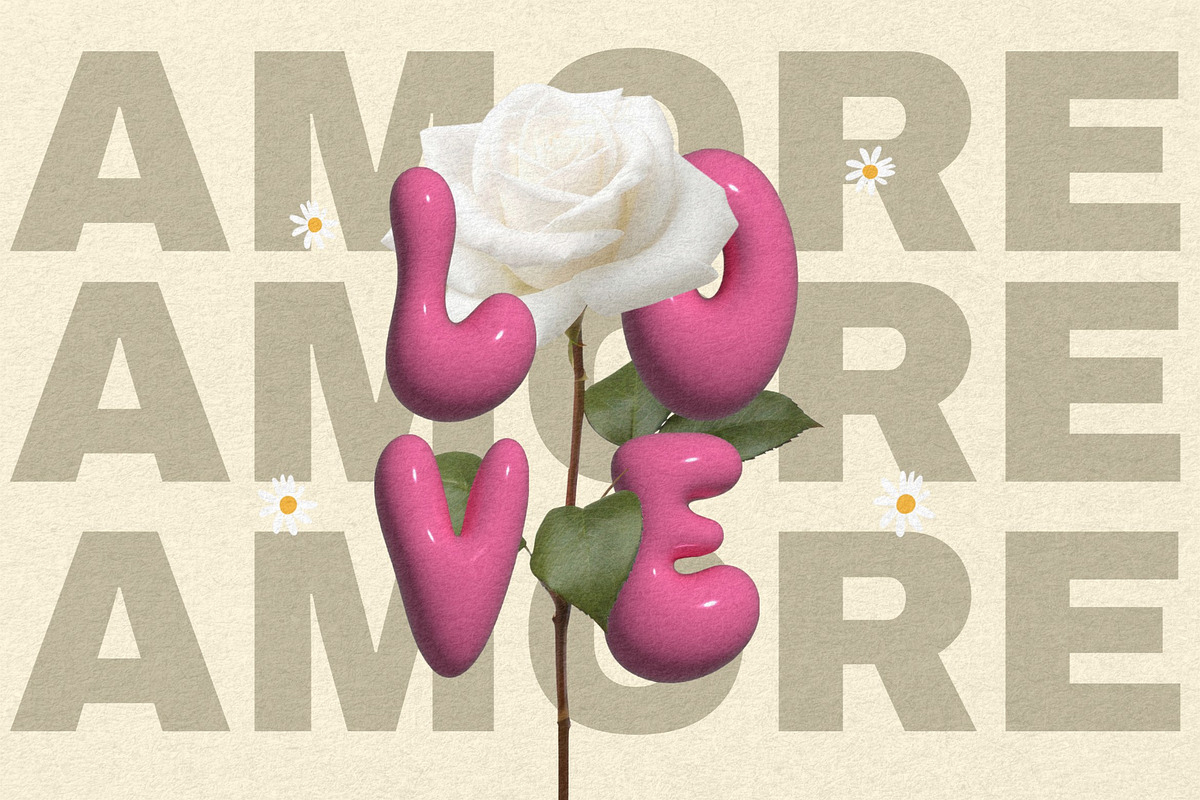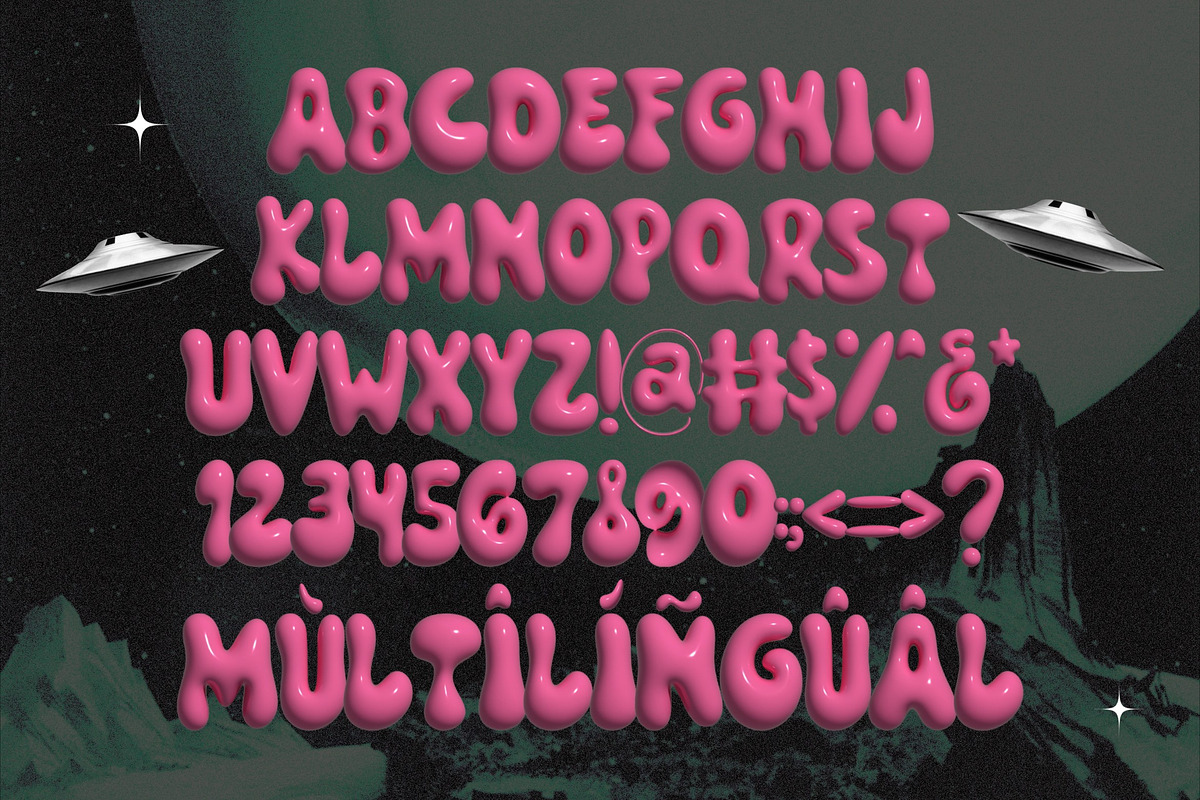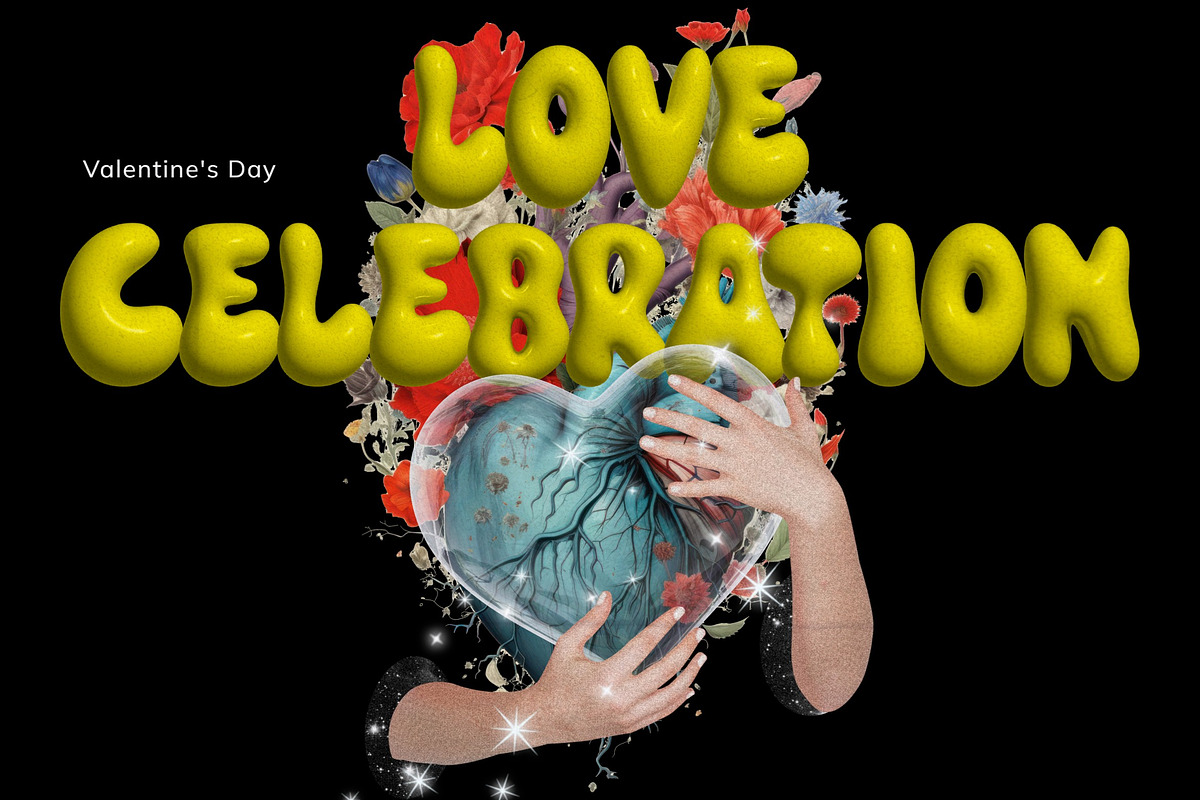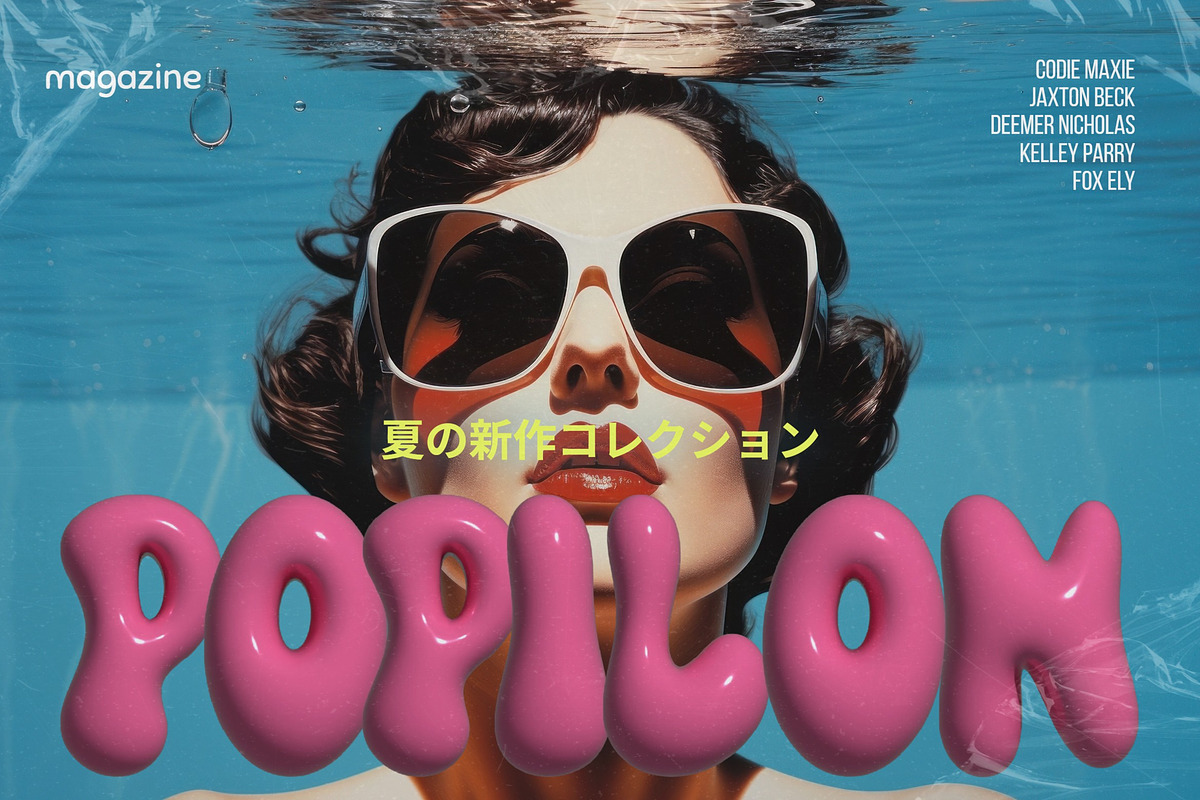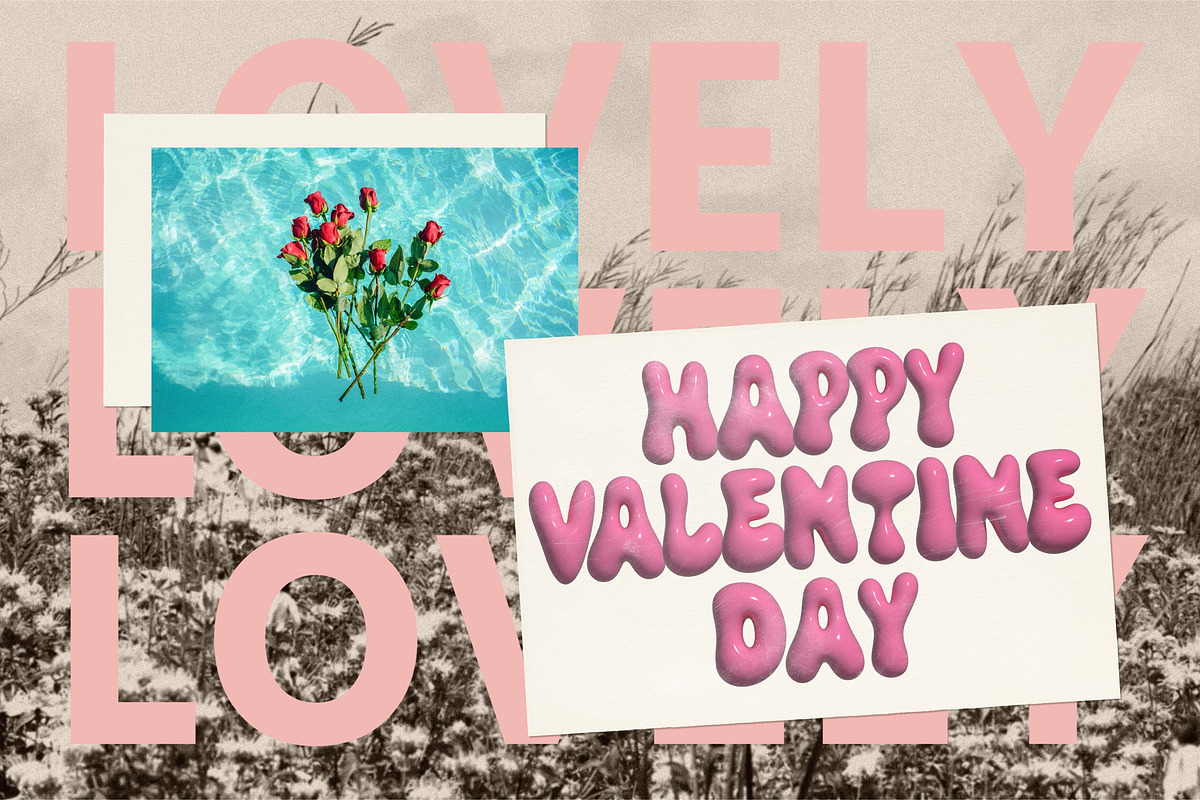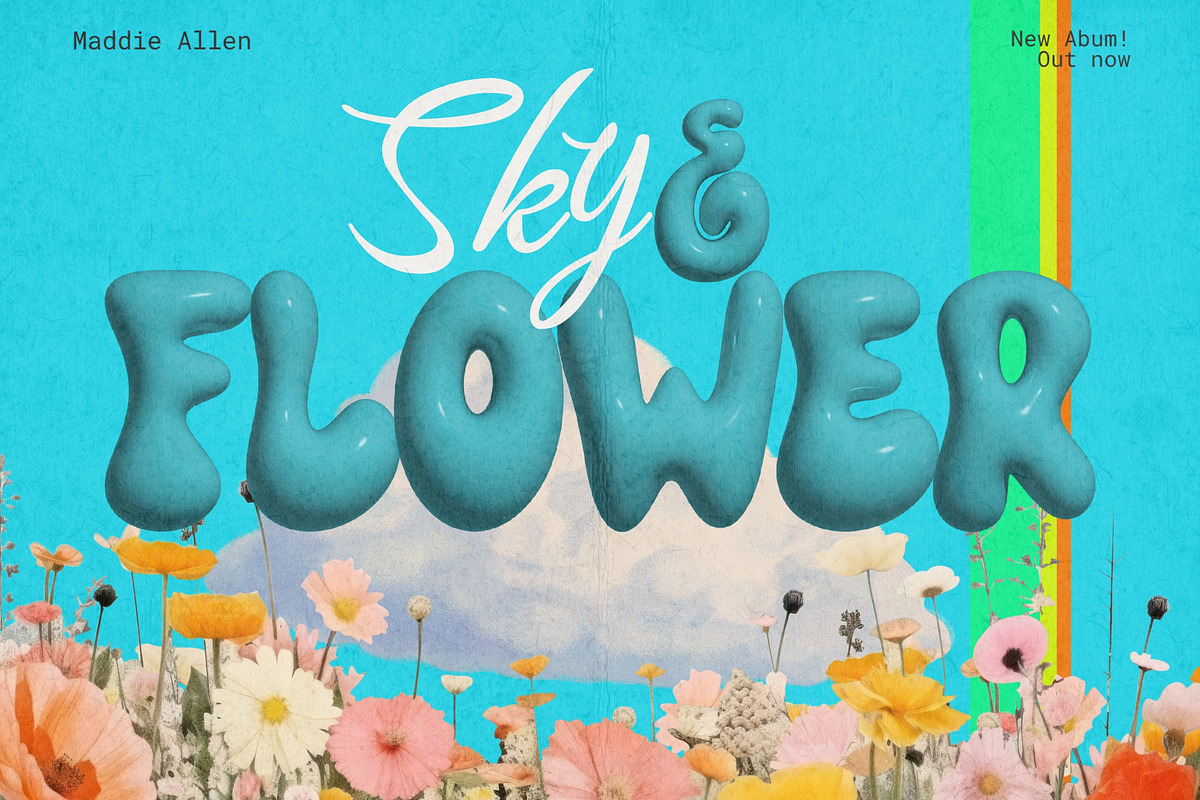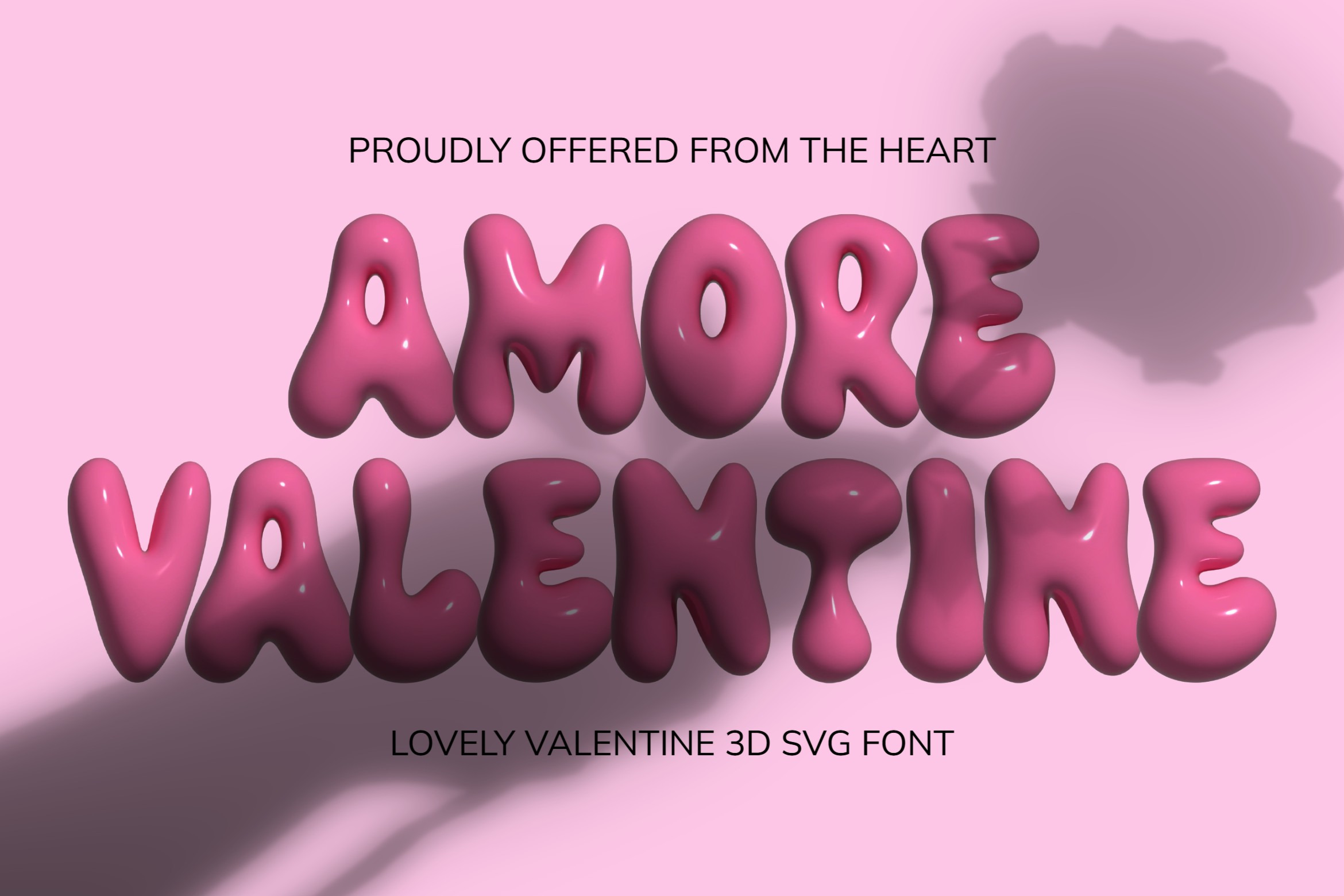
Amore Valentine: Unique 3D SVG Font
Set the mood for love and creativity with the Amore Valentine 3D SVG font! This eye-catching, glossy bubble font is perfect for Valentine's Day projects, romantic cards, invitations, branding, or any design that needs a playful and charming touch. Its vibrant 3D style adds depth and personality to your work, ensuring your designs stand out. Whether you're a designer, marketer, or DIY enthusiast, this font will bring your ideas to life in the sweetest way possible